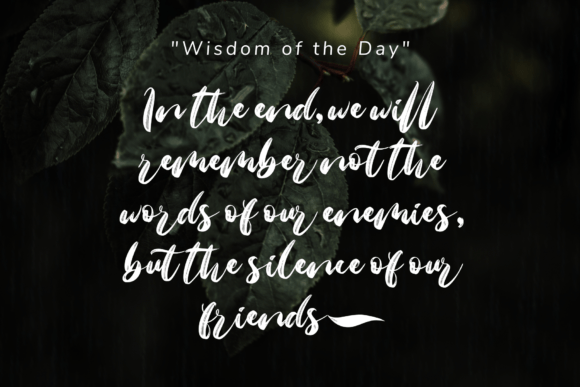
Introducing Chilli Chisel Font: The Epitome of Romantic Sophistication
In the realm of typography, few fonts manage to convey the essence of romantic sophistication and elegance as effortlessly as Chilli Chisel. This chic and refined script brush font has been turning heads with its stylish alternatives and ligatures, making it an excellent choice for a wide range of projects. Whether you’re a designer looking for the perfect font to elevate your branding, a crafty individual working on a DIY project, or a business owner seeking to make a statement with your marketing materials, Chilli Chisel is sure to impress.
Key Features of Chilli Chisel Font
- PUA Encoding: Chilli Chisel is PUA (Private Use Area) encoded, which means that accessing all the glyphs and swashes is a breeze. This feature is particularly useful for designers who want to have full control over the typography in their projects.
- Stylish Alternatives and Ligatures: The font comes with a range of stylish alternatives and ligatures, allowing you to add a touch of uniqueness to your text. These features make Chilli Chisel highly versatile and adaptable to different design needs.
- Script Brush Font: As a script brush font, Chilli Chisel boasts a fluid, hand-painted look that adds a level of sophistication and elegance to any project. Its brush strokes are carefully crafted to give the font a natural, organic feel.
- Elegance and Sophistication: The overall design of Chilli Chisel exudes romantic sophistication and elegance, making it perfect for projects that require a touch of luxury and refinement.
The Many Uses of Chilli Chisel Font
Given its versatility and aesthetic appeal, Chilli Chisel can be used in a variety of projects, including:
- Branding and Logo Design: The unique and elegant look of Chilli Chisel makes it an excellent choice for branding and logo design. It can help businesses stand out and convey a sense of luxury and sophistication.
- Wedding and Event Stationery: For wedding invitations, save-the-date cards, and other event stationery, Chilli Chisel adds a romantic and elegant touch that sets the tone for the special day.
- Packaging Design: The font’s stylish and refined look makes it suitable for packaging design, especially for luxury brands looking to make a statement with their product packaging.
- Marketing and Advertising Materials: Chilli Chisel can elevate marketing and advertising materials, such as brochures, flyers, and posters, by adding a level of sophistication and elegance.
- DIY Projects: For crafty individuals working on DIY projects, such as handmade cards, scrapbooking, and journaling, Chilli Chisel offers a beautiful and versatile font option.
Tips for Using Chilli Chisel Font Effectively
To get the most out of Chilli Chisel and ensure it looks its best in your projects, consider the following tips:
- Pair with Complementary Fonts: When using Chilli Chisel in a project, consider pairing it with complementary fonts that enhance its elegance and sophistication. A simple sans-serif font can work well as a contrast to the script brush font.
- Adjust Font Size and Color: Experiment with different font sizes and colors to find the perfect combination for your project. Chilli Chisel can look stunning in bold, eye-catching sizes or in more subtle, muted tones.
- Utilize Swashes and Ligatures: Take advantage of the font’s swashes and ligatures to add a unique touch to your text. These features can help create a more dynamic and visually interesting design.
- Consider the Context: Ensure that the use of Chilli Chisel aligns with the project’s context and target audience. Its elegant and sophisticated look makes it suitable for luxury brands and high-end events.
Chilli Chisel font is a remarkable addition to any designer’s font library. Its romantic sophistication, elegant look, and versatile features make it an excellent choice for a wide range of projects. Whether you’re working on branding, marketing materials, event stationery, or DIY projects, Chilli Chisel is sure to elevate your design and leave a lasting impression. With its PUA encoding, stylish alternatives, and ligatures, this chic and refined script brush font is poised to become a favorite among designers and crafty individuals alike.